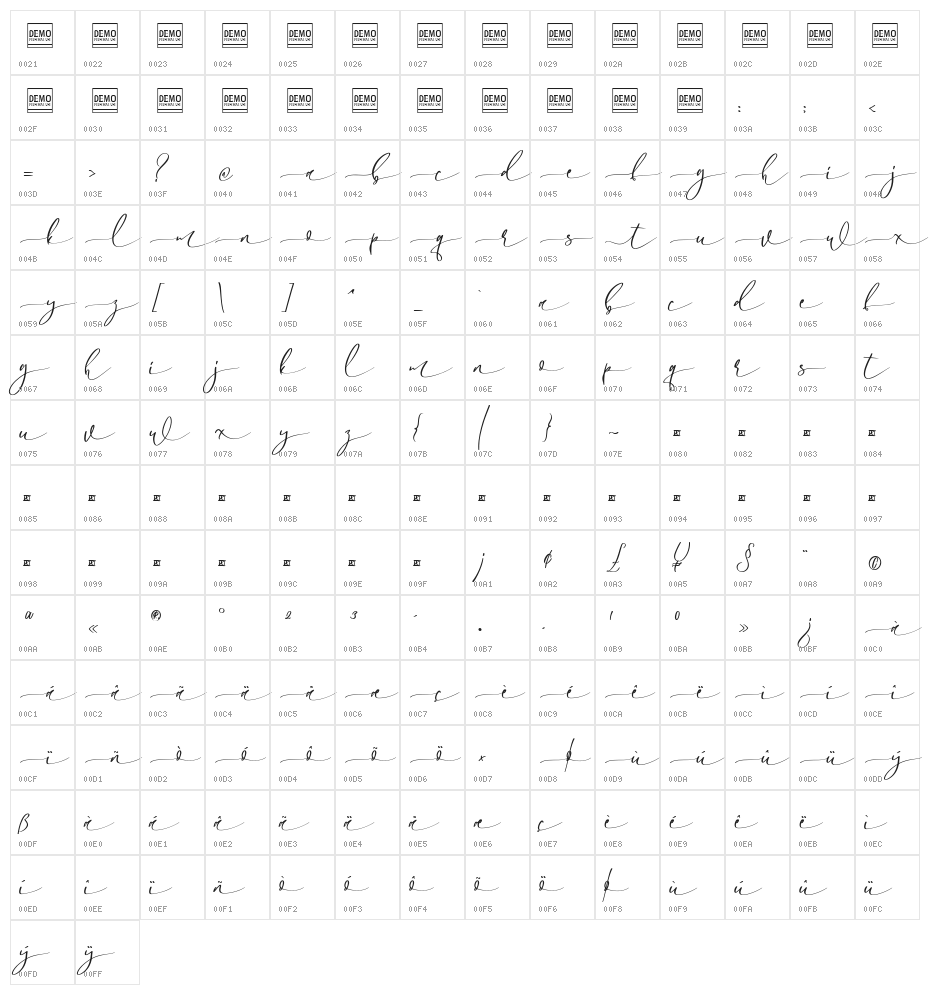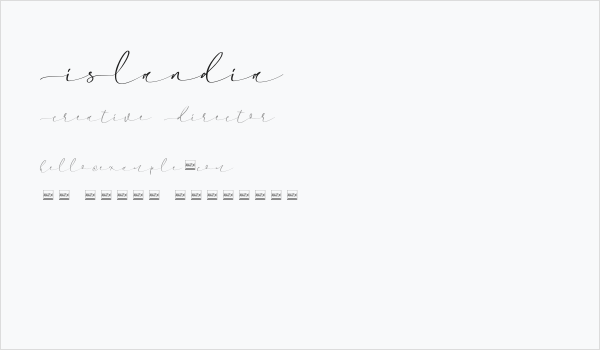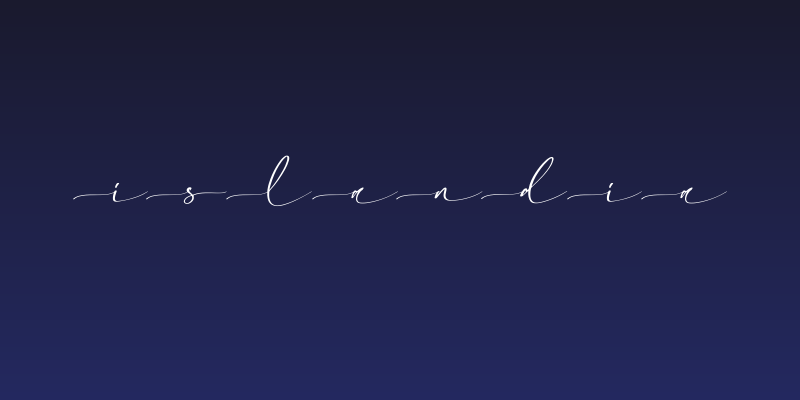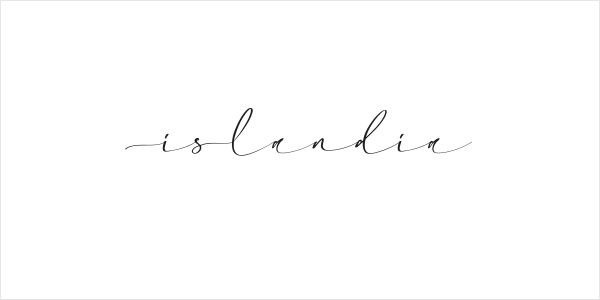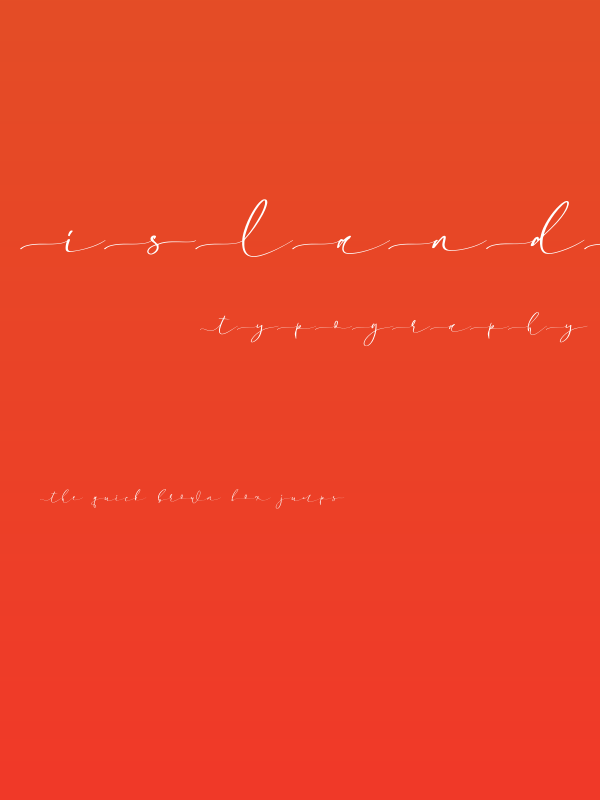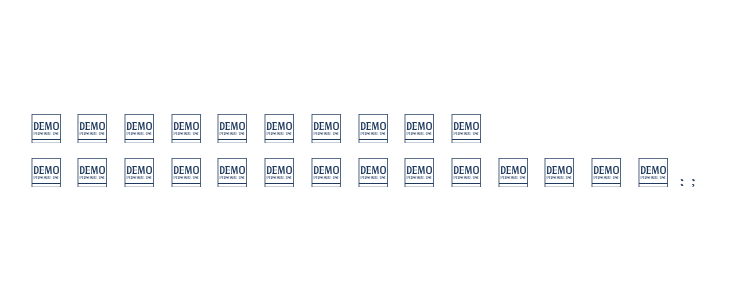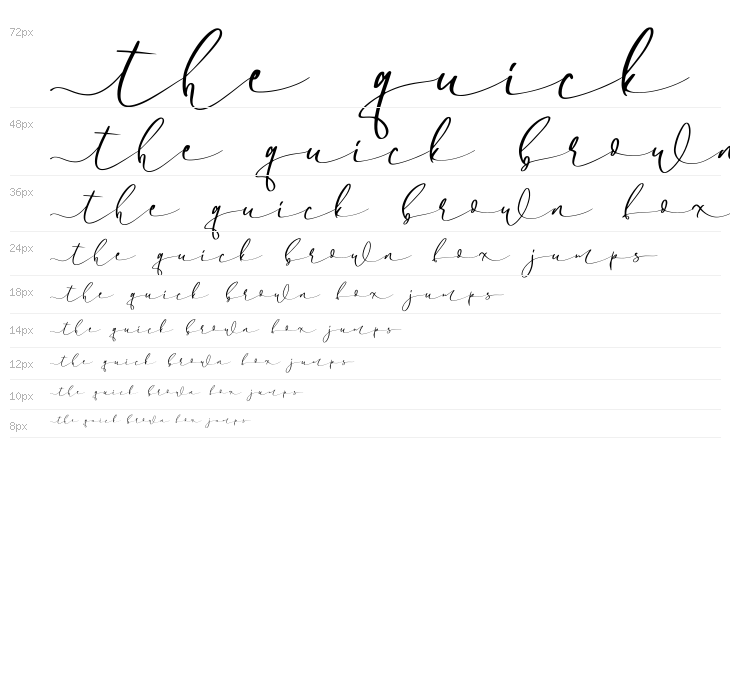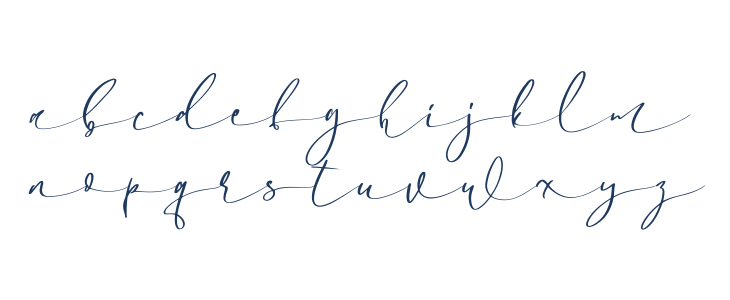
Islandia Font
Islandia Description
This font exudes elegance and sophistication with its flowing, cursive style. The letters are intricately connected, creating a seamless and graceful appearance. The strokes are delicate and fluid, with a slight variation in thickness that adds a touch of dynamism without overwhelming the overall design. The font maintains a consistent baseline, which enhances readability while preserving its artistic flair. Its refined and stylish nature makes it suitable for projects that require a personal and elegant touch.
| Proposed Projects | Ideal for wedding invitations, elegant branding, personal stationery, and artistic projects that require a touch of sophistication. |